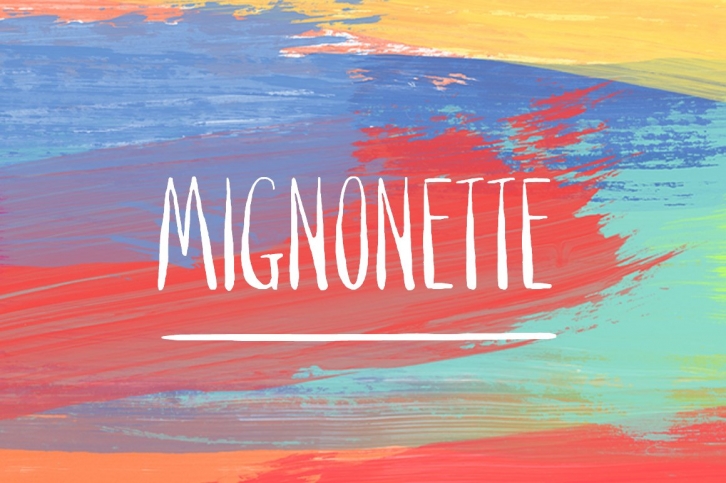
Handdrawn with calligraphy ink and an antique dip pen, Mignonette is ready for the charming and the rustic. She's heavy on the bottom and hairline at the top, and includes all sorts of additional numerals, currency figures as well as multi-language support. Mignonette shines in correspondence; she has a particular affinity for offbeat and heartfelt stationery.